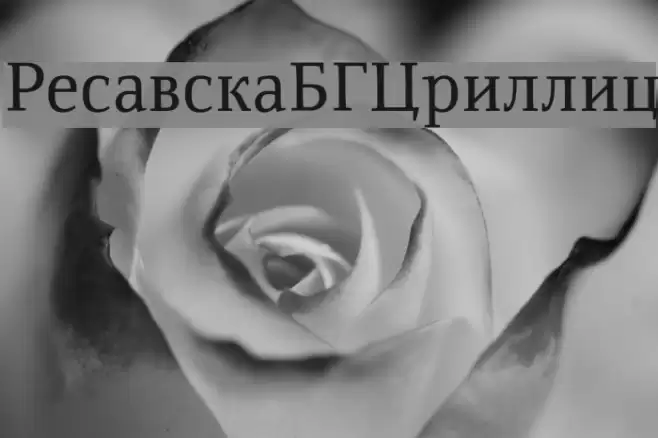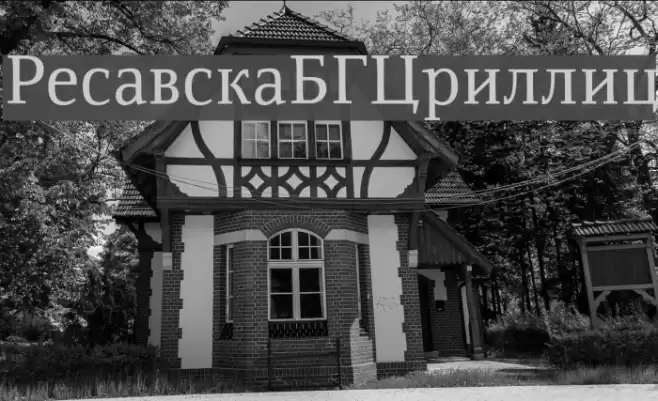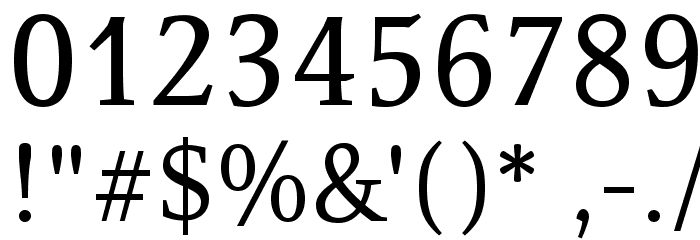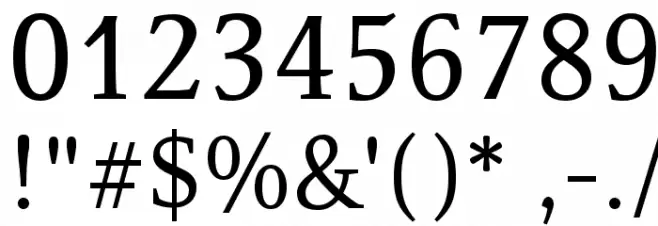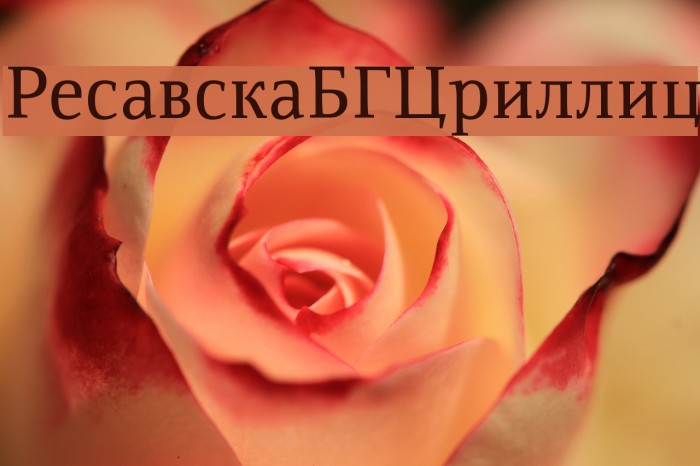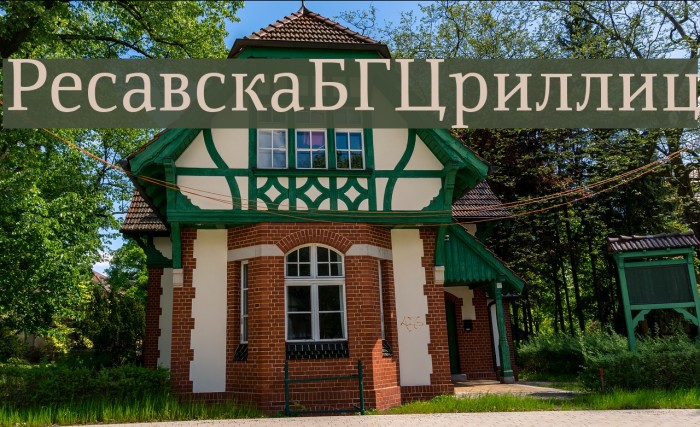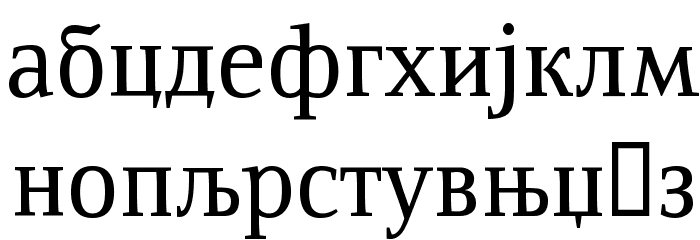
ResavskaBGCyrillic Font
ResavskaBGCyrillic Description
This font presents a classic serif style with a strong presence and clear readability. The Cyrillic characters are well-defined, featuring traditional serif elements that enhance legibility. The uppercase letters exhibit a balanced proportion, while the lowercase letters maintain a consistent style, ensuring a cohesive look across different text sizes. The numerals are straightforward and align well with the overall design, making them suitable for various applications. Special characters are included, providing versatility for different uses. The font's structure is robust, making it ideal for formal documents, editorial design, and branding projects.
A classic serif font with strong readability and a cohesive design, suitable for formal and editorial use from Uncategorized fonts.
- Proposed Projects: Ideal for use in formal documents, editorial design, branding, and any project requiring a classic and readable serif font.
- Overall Style: Classic